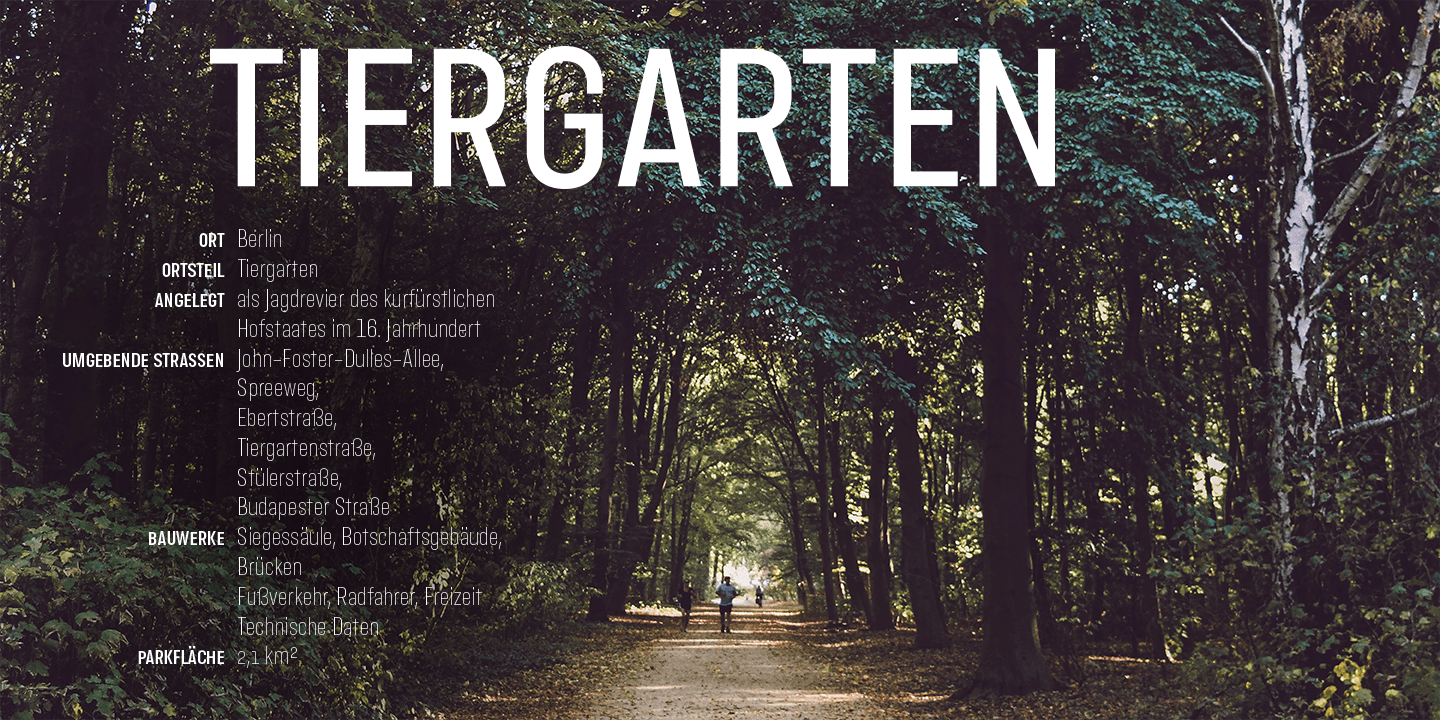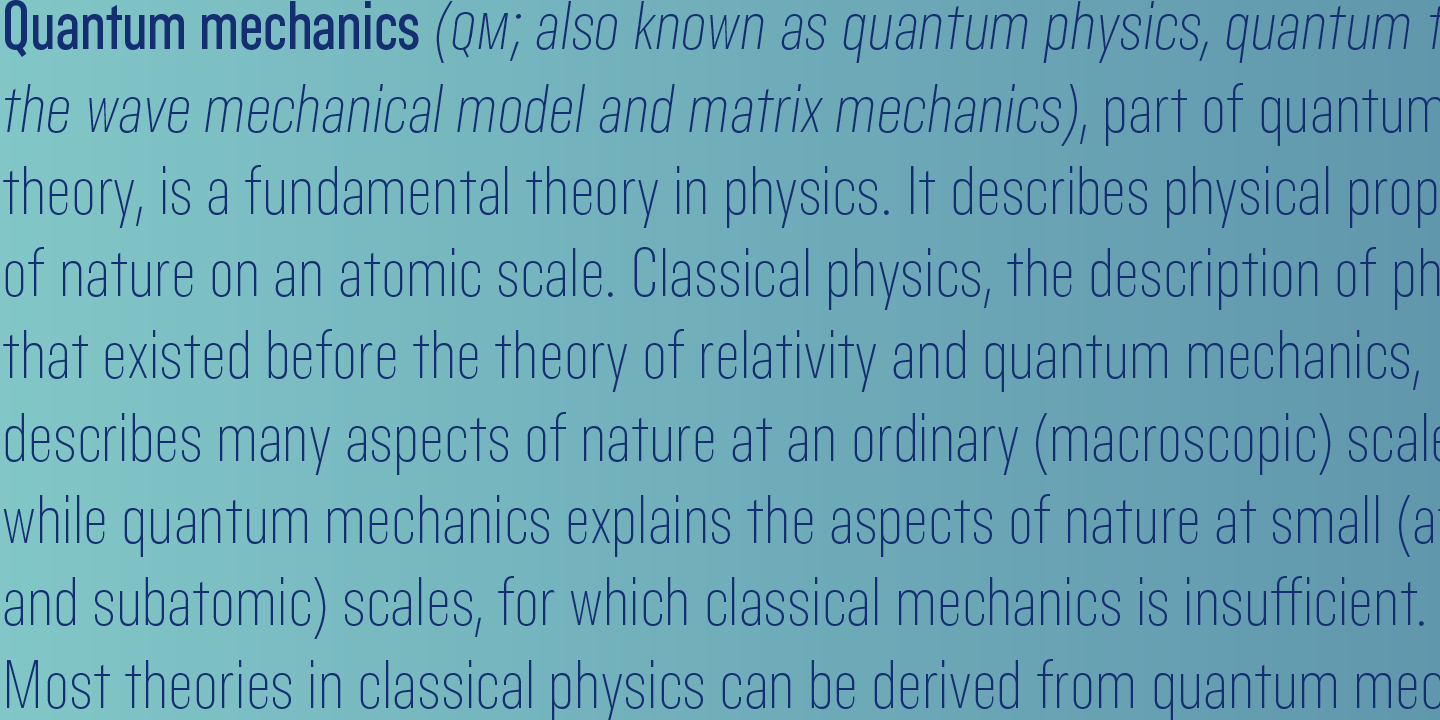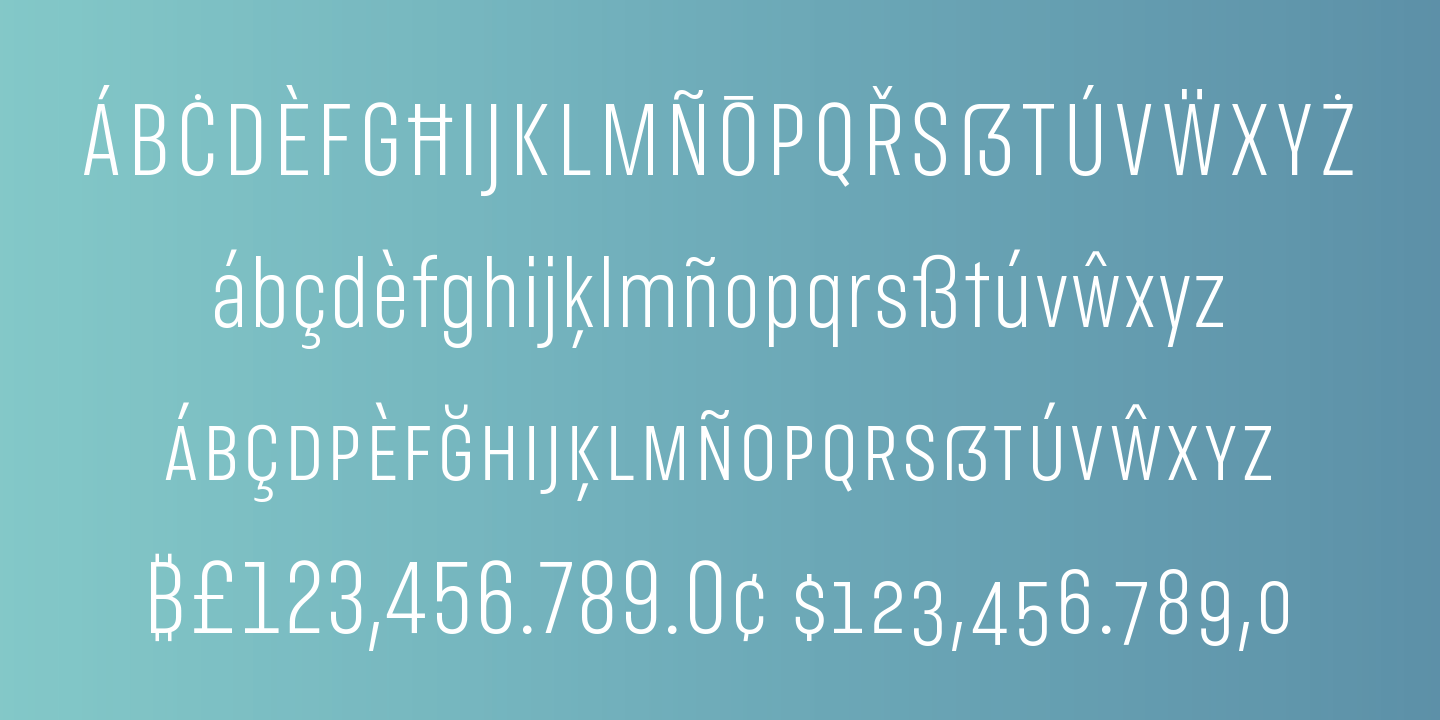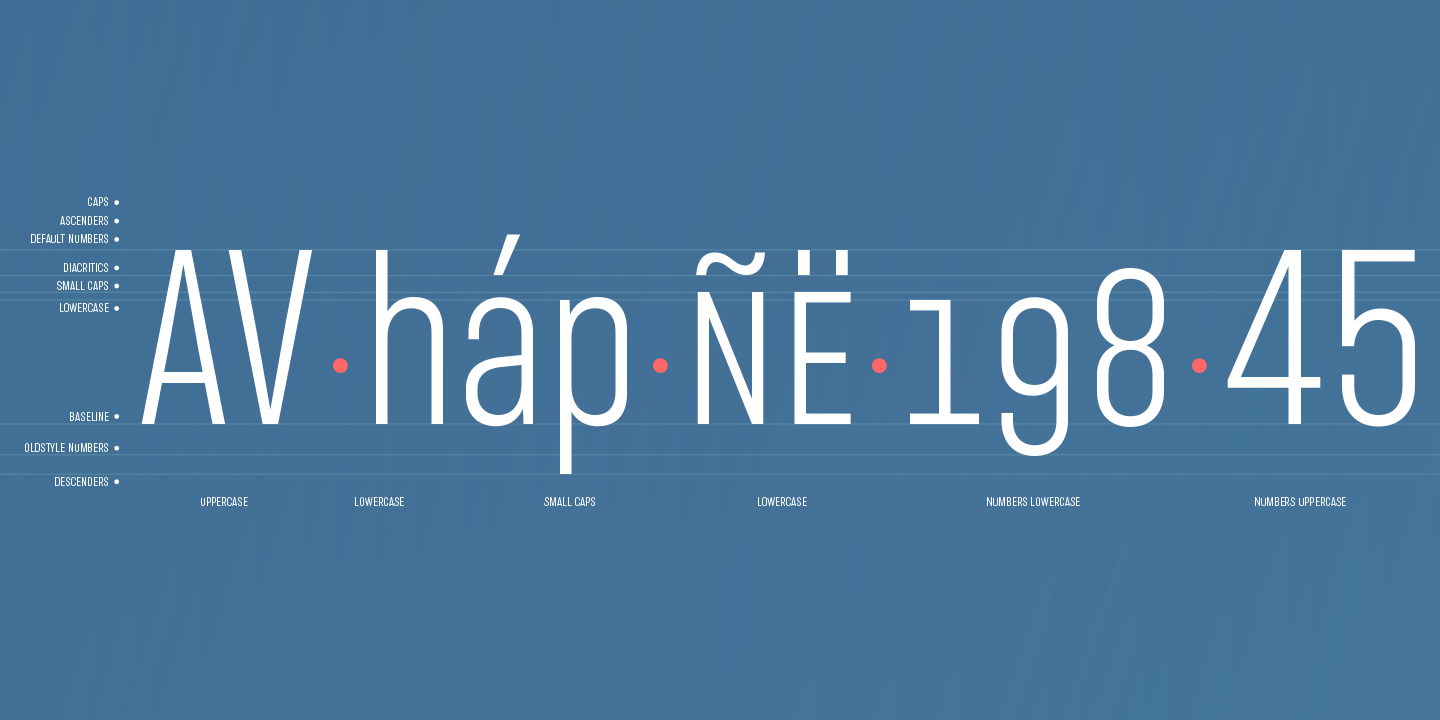
About Stadtmitte
Stadtmitte is a grotesque font with a distinctly industrial flair. It is inspired on a reinterpretation of the Berlin’s vernacular signs and characters created under the DIN 1451 norm. By the early 1900s, german painters and sign makers started…